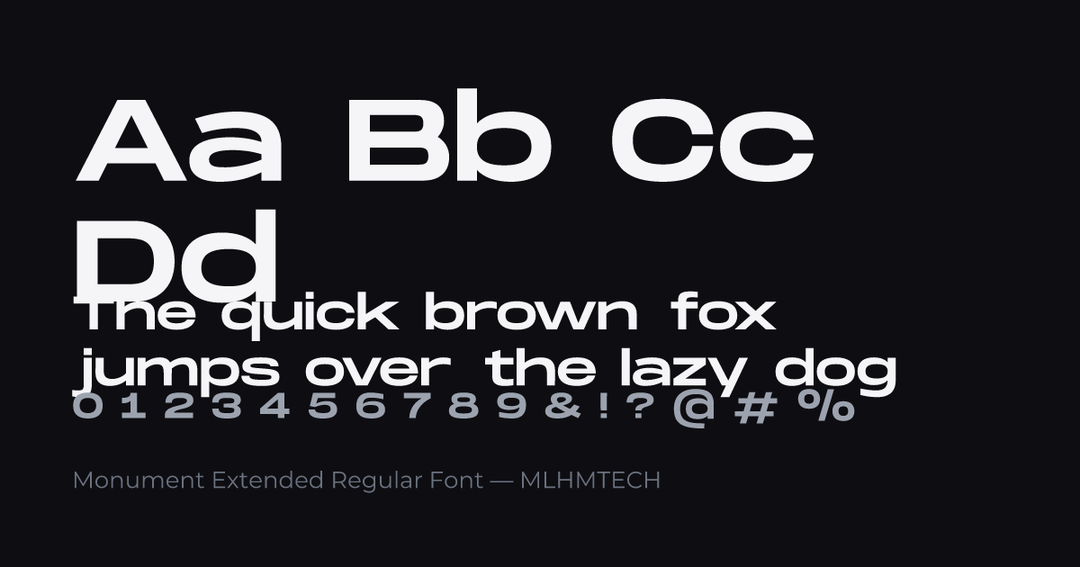
Monument Extended Regular Font
Monument Extended Regular is a bold, extended sans-serif font that commands attention. Ideal for headlines, posters, and branding.
Monument Extended Regular is a striking geometric sans-serif with a wide, extended form. Its clean lines and bold weight make it perfect for impactful headlines, posters, and branding materials. The font's modern aesthetic adds a touch of sophistication to any design project.